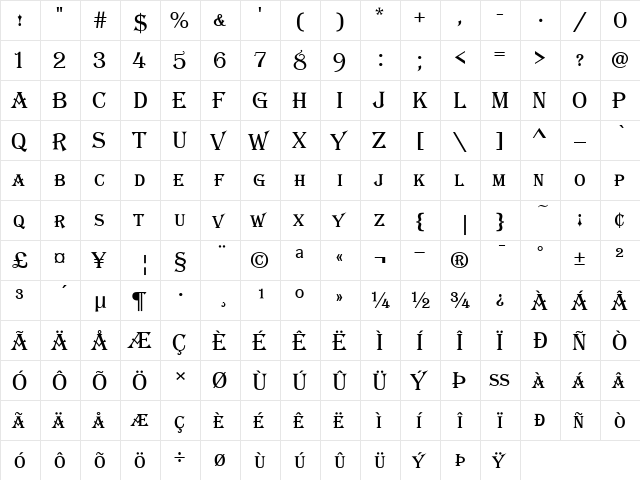
Algerian Basic SC D Regular
Design Context for Algerian Basic SC D Typeface
Algerian Basic SC D takes a measured approach to typography — its balanced proportions and neutral character make it a reliable workhorse for both digital and print work.